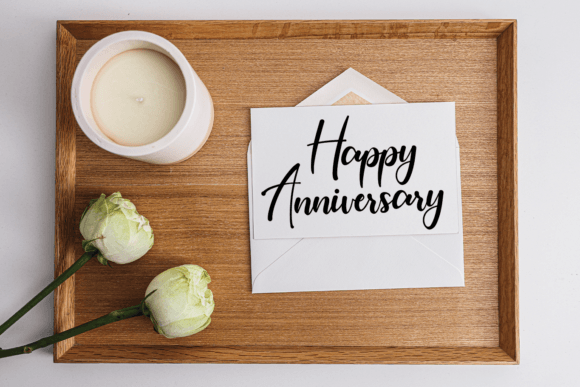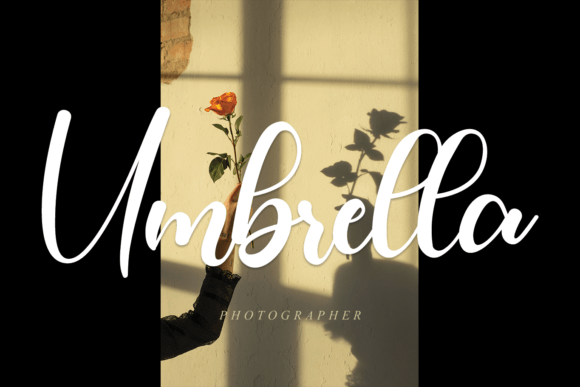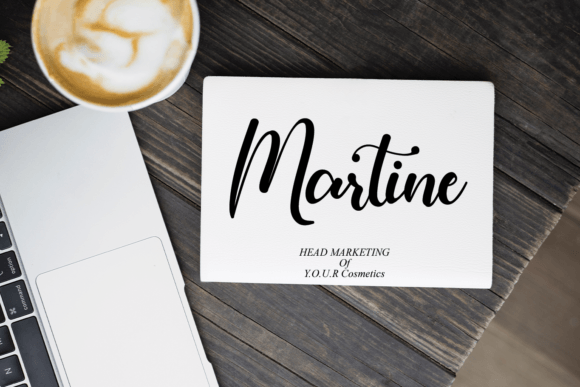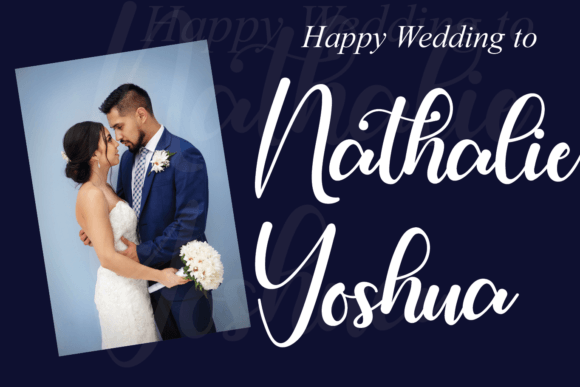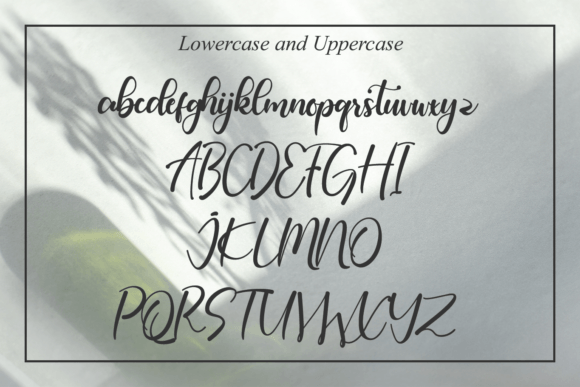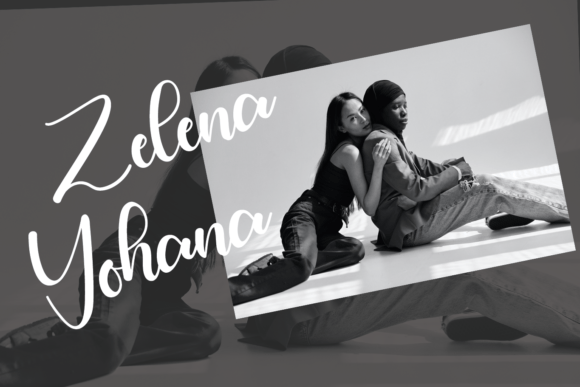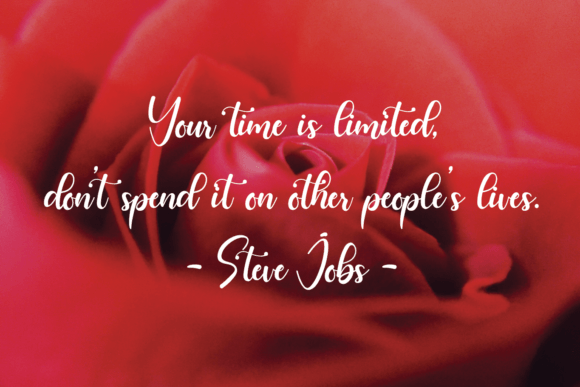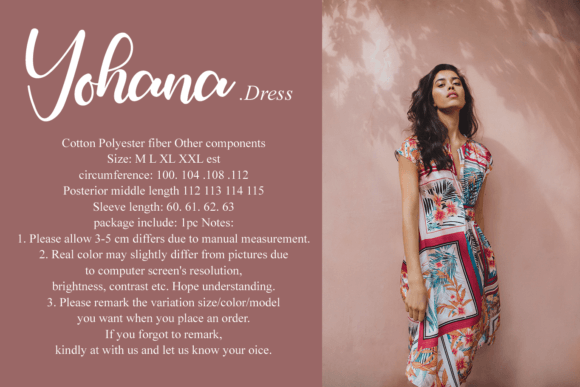
Anything Font
About Anything Font
Anything is a sweet and beautiful handwritten font. Featuring characters that dance along the baseline, this font will add a luxury spark to any design project you wish to create!